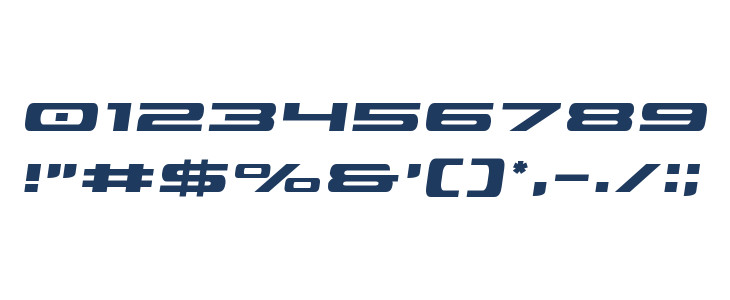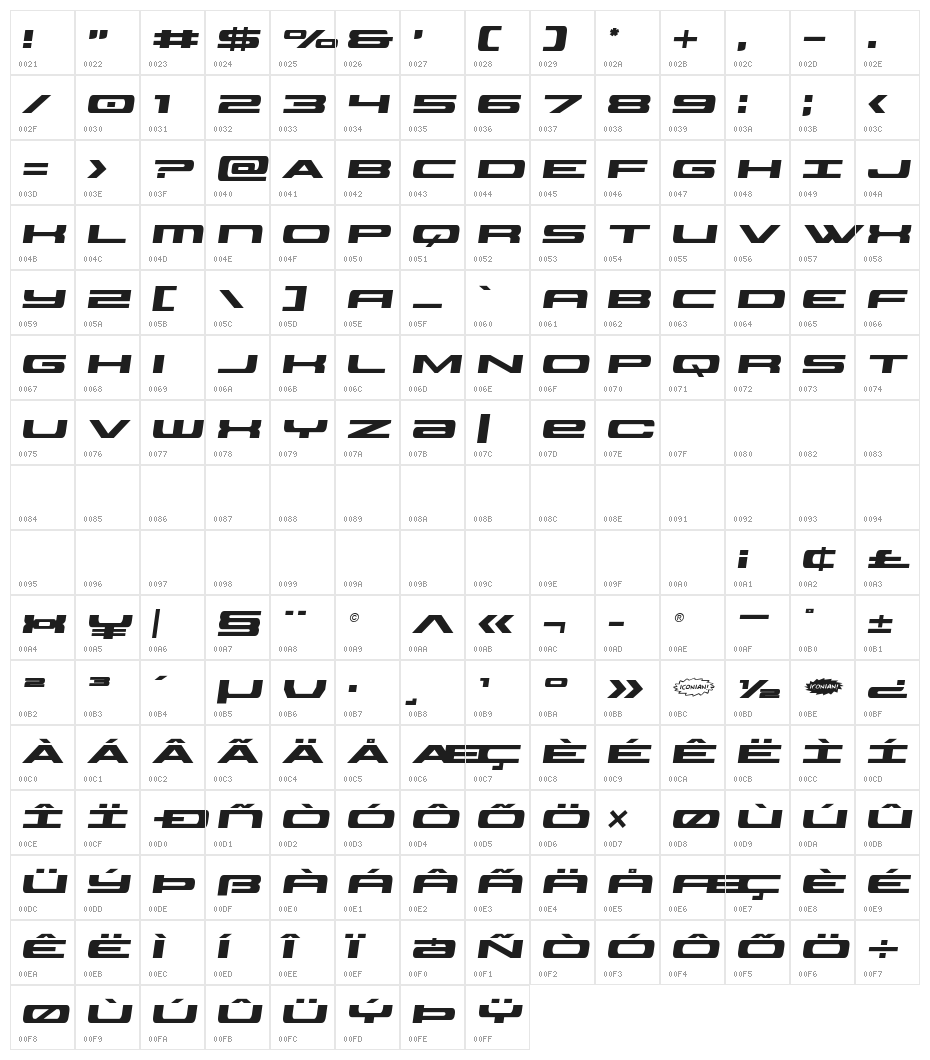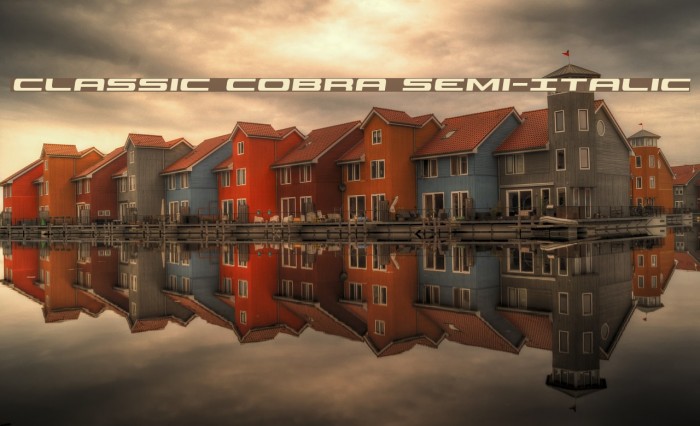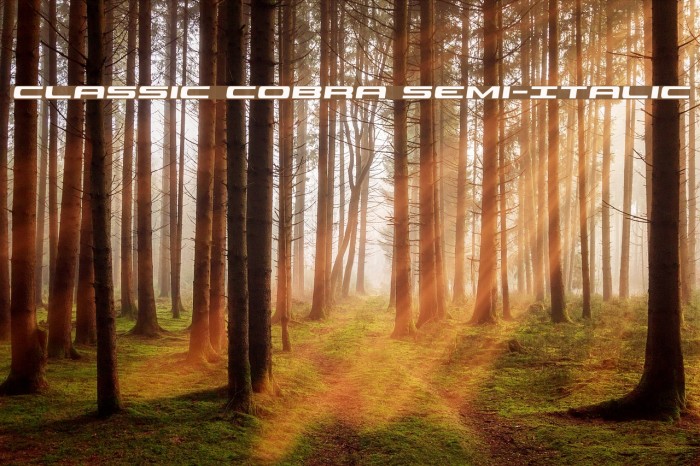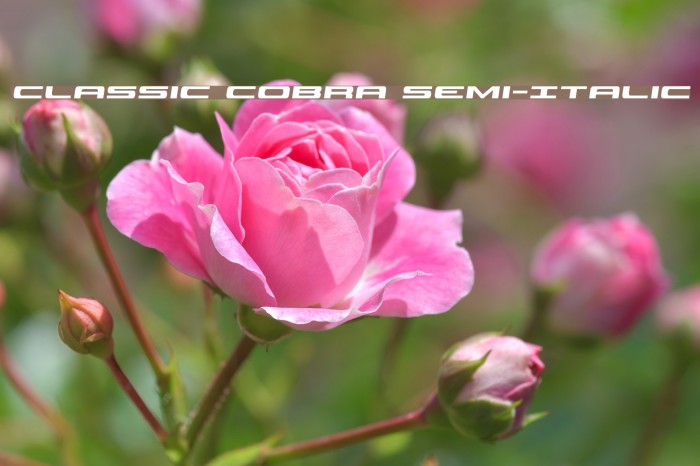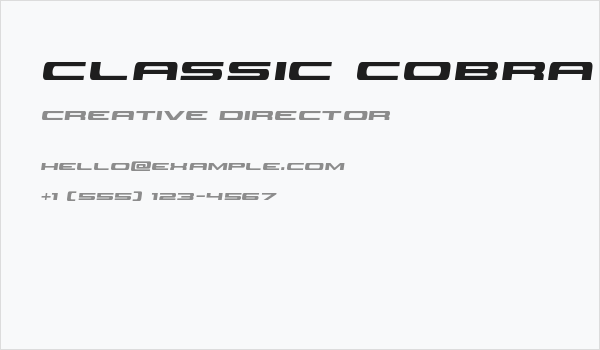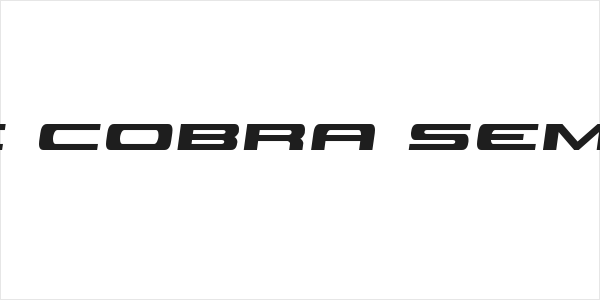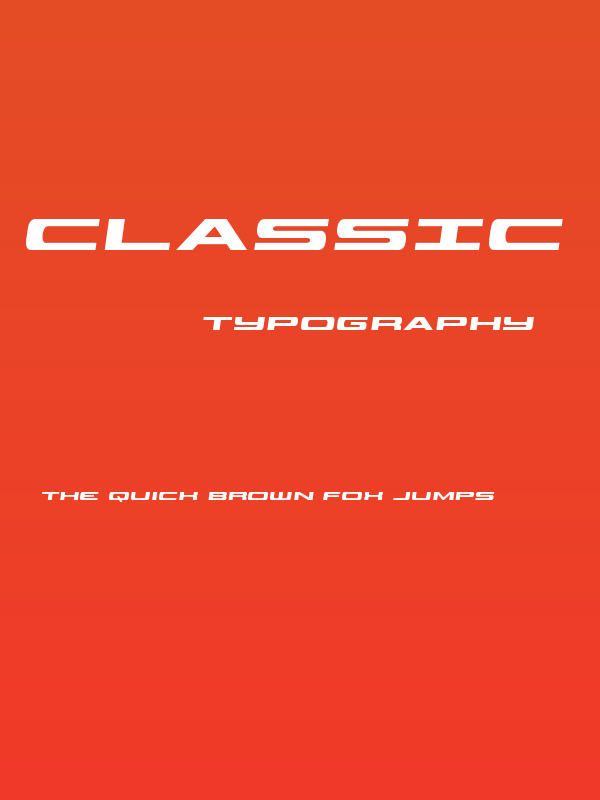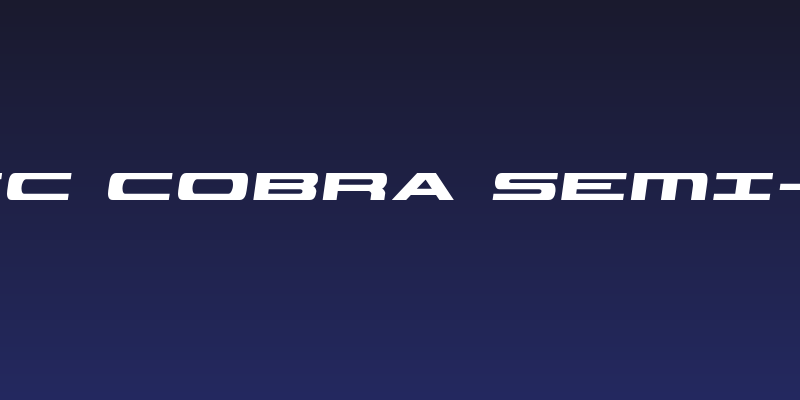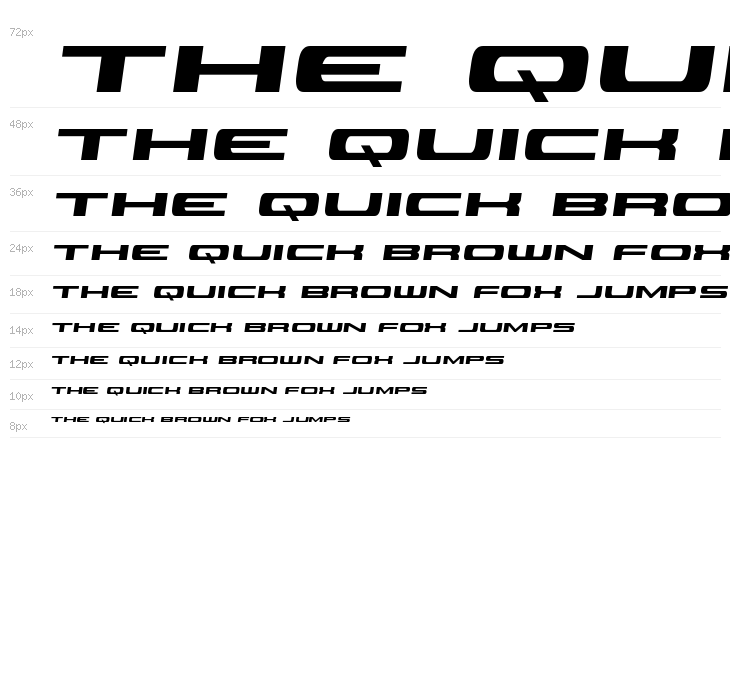
Classic Cobra Semi-Italic Font
Classic Cobra Semi-Italic Description
This font features a sleek, semi-italic style with a modern and dynamic appearance. The characters are slightly slanted, giving a sense of motion and speed. The strokes are consistent in weight, providing a uniform look across all characters. The design is clean with minimal embellishments, focusing on readability and style. The numerals and special characters maintain the same aesthetic, ensuring cohesion throughout. This font is ideal for projects that require a contemporary and energetic feel.
| Proposed Projects | Ideal for automotive branding, sports team logos, dynamic posters, and modern web design. |